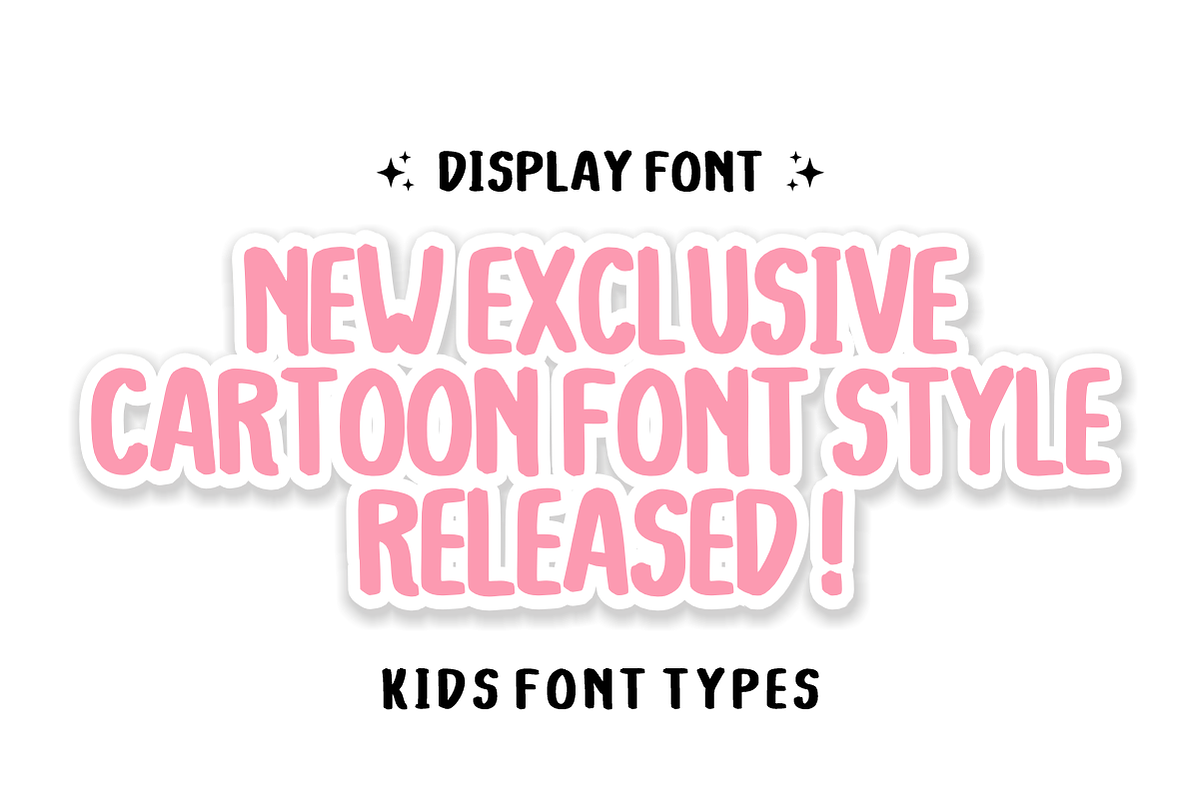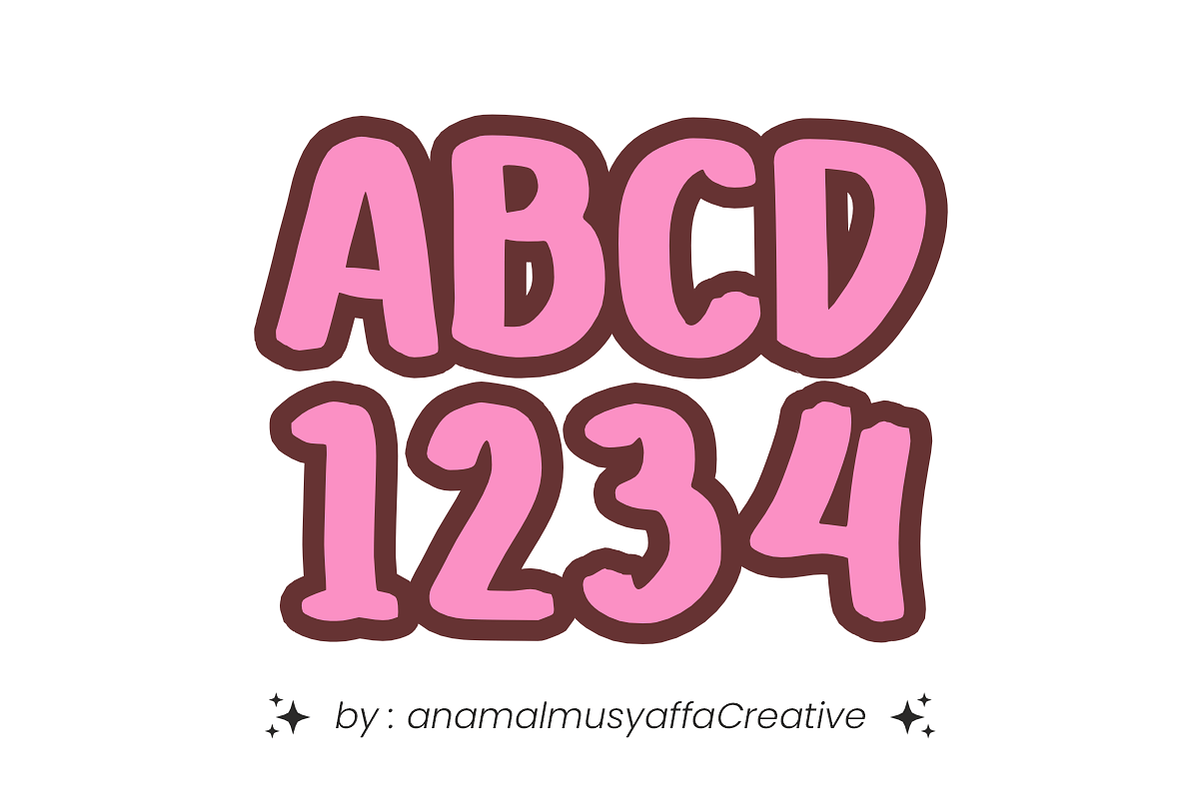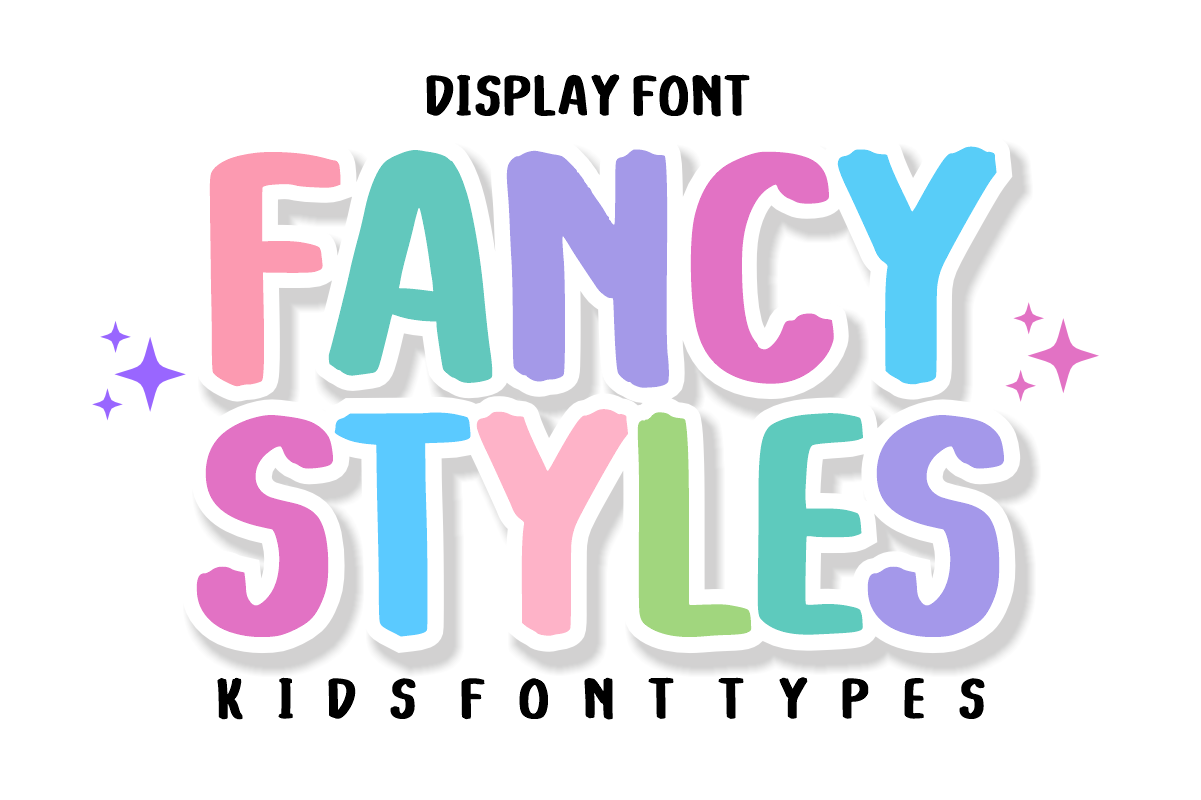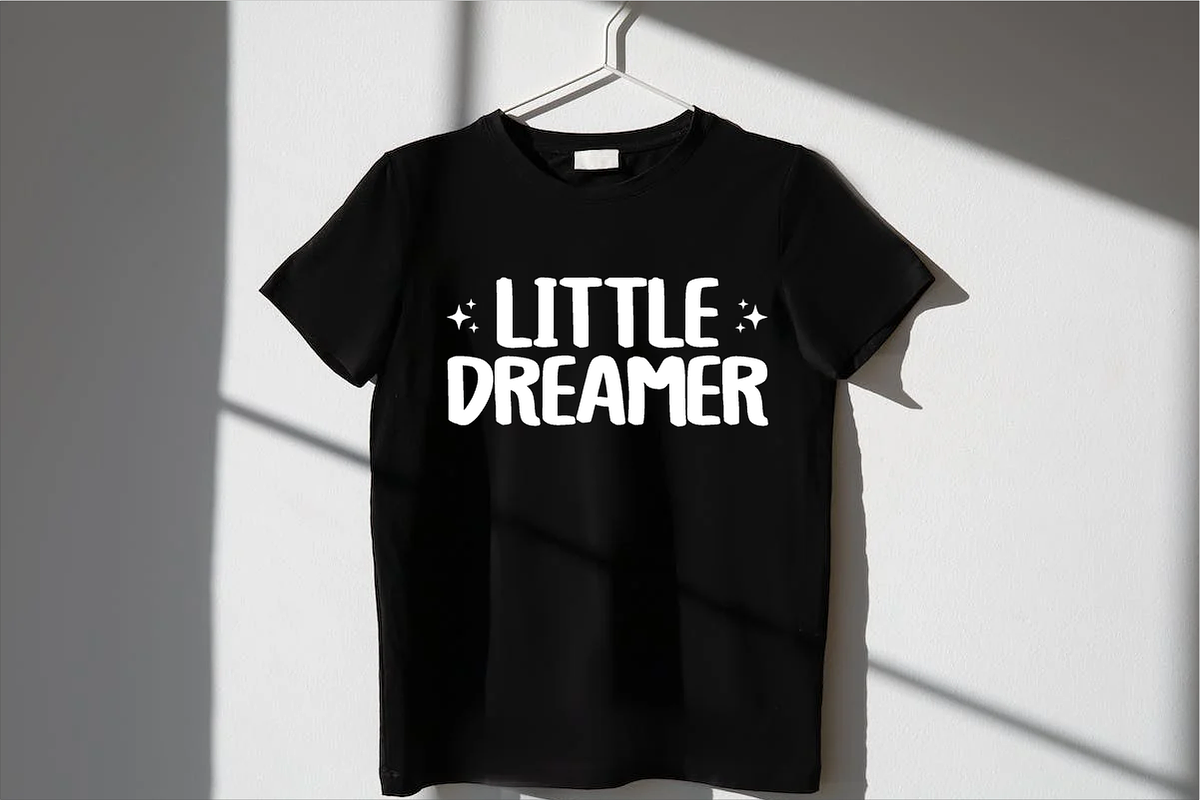
Fancy Styles - Kids Display Font
Fancy Styles - Playful Kids Display Font
Bring a cheerful, energetic charm to your designs with Fancy Styles! Perfectly crafted as a versatile "Kids Font Type," this bold and chunky display font features tall, hand-drawn letterforms with subtle organic edges that add an instant splash of fun and personality to any project.
Perfect for youth-focused branding, children's publishing, and trend-focused crafting, Fancy Styles seamlessly balances a high-energy cartoon aesthetic with excellent legibility. It is highly versatile, expressive, and fully optimized for flawless performance across premium digital cutting tools and print layouts.
All-Caps Character Set (Chunky, tall, and happy uppercase letters)
Numbers & Basic Punctuation (Essential, simple symbols included)
Children’s Book Covers & Playful Editorial Layouts 📚
School Projects, Teacher Resources, & Classroom Decor 🎒
Kids' Product Packaging, Toy Labels, & Nursery Decor 🧸
Cricut, Silhouette, & DIY Craft Sublimation Projects ✂️
Social Media Graphics, Custom Stickers, & Cute Logos 📱